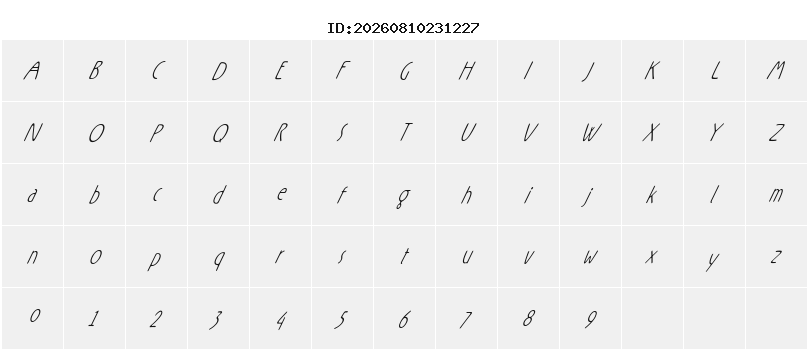
• Font Name: Rx-ZeroOne
• Full Font Name: Rx-ZeroOne
• Designer: Apostrophe (')
About Rx-ZeroOne.ttf
Rx-ZeroOne.ttf is a modern, elegant sans-serif font designed for ultimate readability and visual harmony. Perfect for branding, headlines, web design, and print materials.